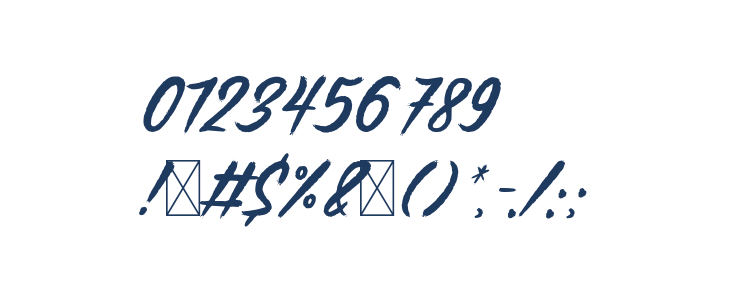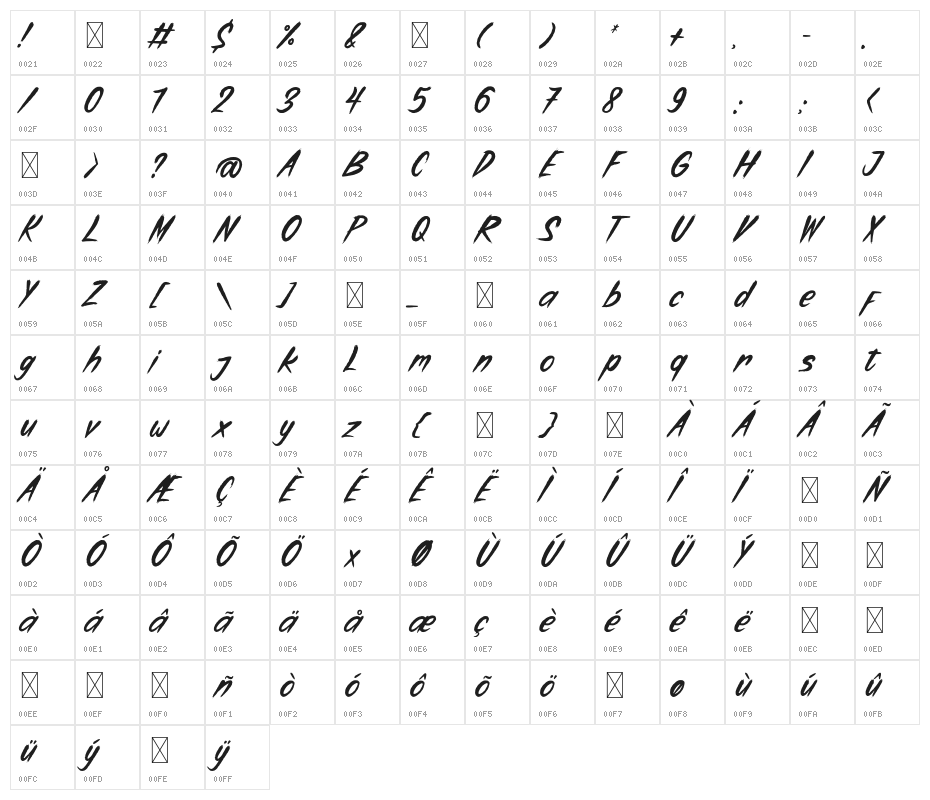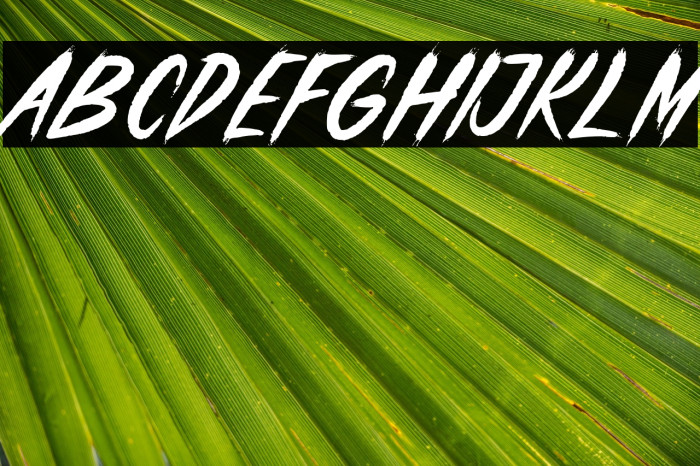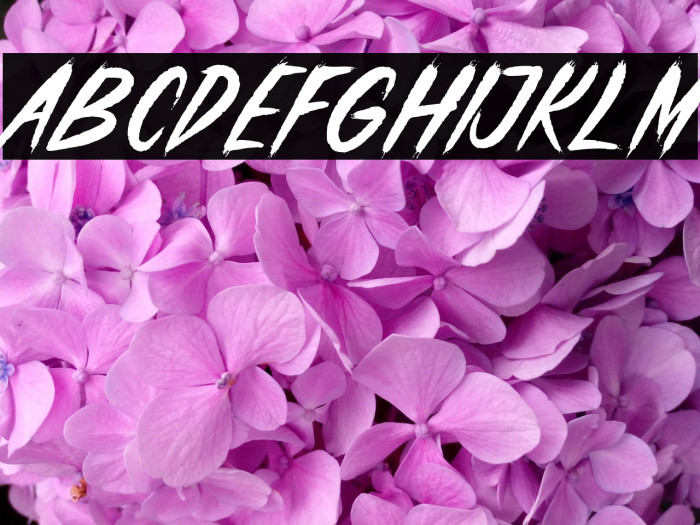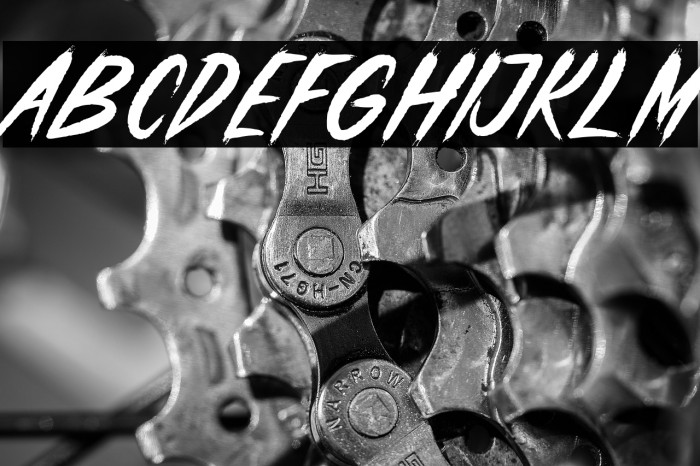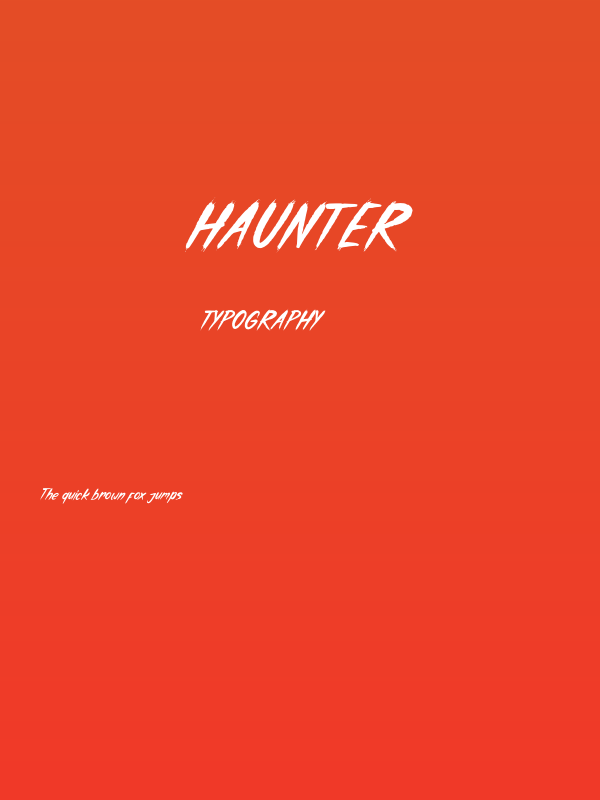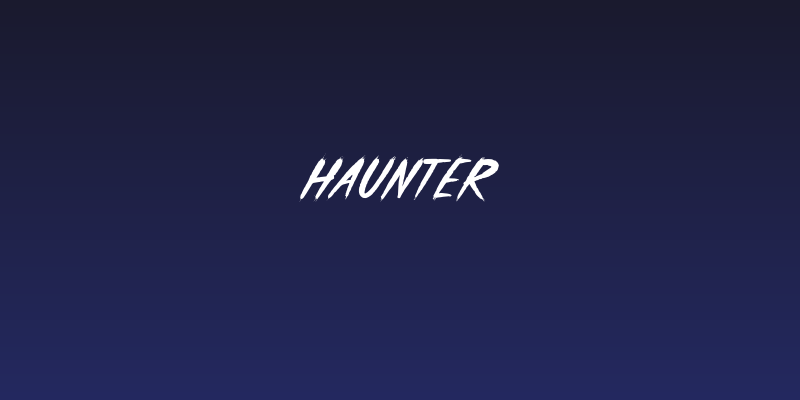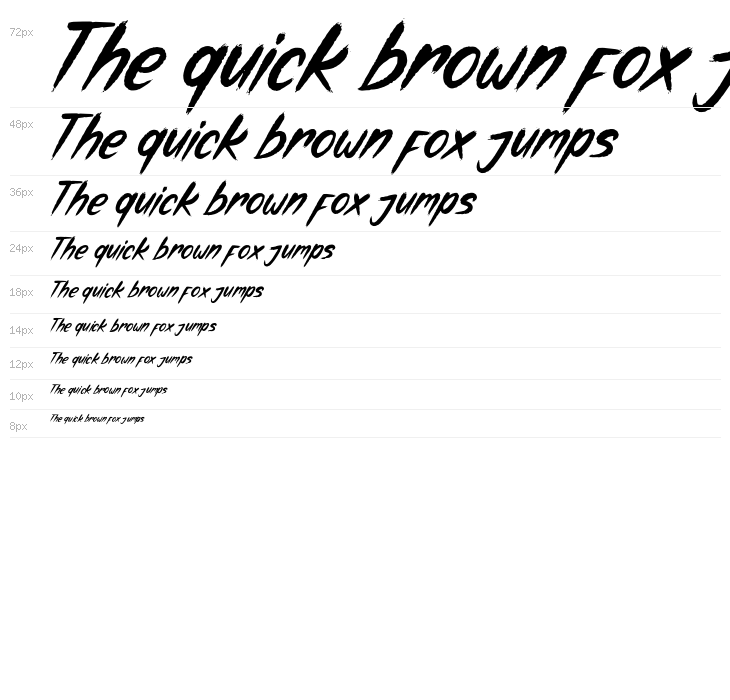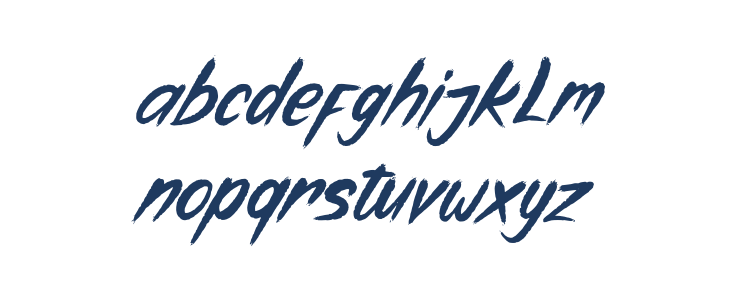
Haunter Font
Haunter Description
This font features a bold, energetic script style with a hand-painted appearance. The letters are slanted, giving a sense of motion and dynamism. The strokes are thick and uneven, adding a raw, expressive quality. The uppercase and lowercase letters maintain a consistent style, with sharp angles and fluid curves. Numbers and special characters follow the same aesthetic, ensuring a cohesive look across all elements. The overall design is striking and attention-grabbing, making it suitable for impactful visual statements.